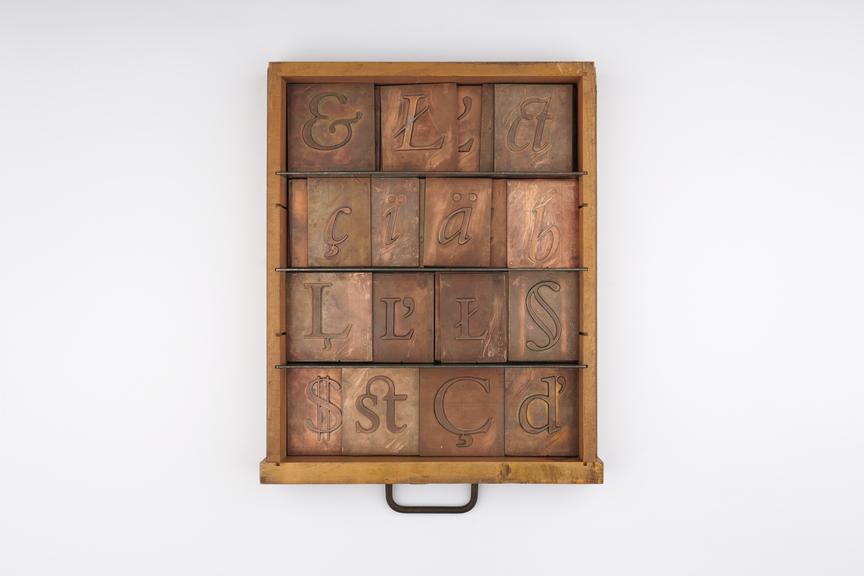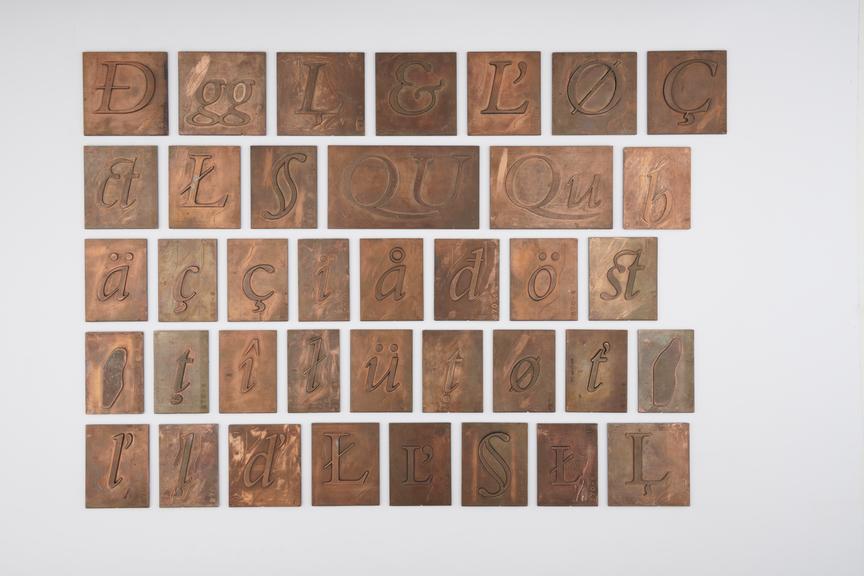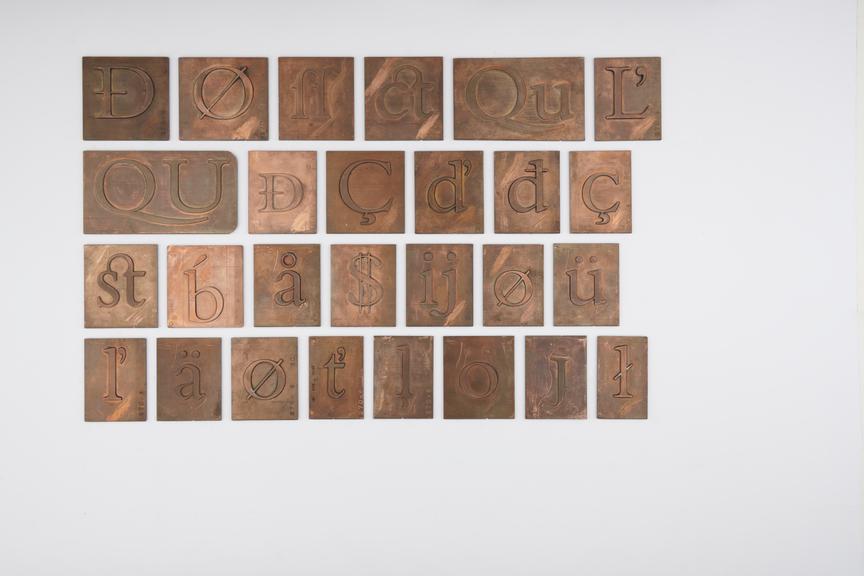
Pattern for Bembo (Typeface Series number: 270)
Pattern for Bembo (Typeface Series number: 270). 6 point. Copper plate backed with lead. In original wooden tray. Manufactured by Monotype Corporation.
All Old Face designs up to the time of Caslon can be traced back to a roman type which Francesco Griffo cut for the Venetian printer Aldus Manutius. The first of these, used for Cardinal Bembo’s tract de Aetna in 1495, was the original upon which Monotype Bembo is based and named. Esteemed typographer Stanley Morison’s research showed that it was the model followed by Garamond and the forerunner of the standard European type of the next two centuries. Bembo was carefully redrawn to capture the spirit and intention of the original as part of an effective type design programme at Monotype. The first size of Bembo was released in 1929 and many more followed over the years. The functional serifs and comfortably balanced letters make it a very legible face in all its sizes.
Bembo is classified as an Old Face design due to the diagonal stress, bracketed serifs and the lowercase top serifs cut off on the slant. Monotype described the design as ‘free from peculiarities’. The letters by which the face can be most easily identified are the square ‘H’; the round ‘O’ with back-tilted axis; the curved arm of ‘K’; the flat top of ‘A’; the flattened foot of ‘J’; and the splayed base of ‘M’. There were two versions of capital ‘R’, with the leg protruding to different lengths. The capitals are slightly shorter than the lowercase ascenders. In the lowercase there is no point or serif to the foot of ‘b’; an upturned foot to ‘d’; long heavy cross-stroke to ‘t’; large loop and heavy wedge ear to ‘g’. The final stem of ‘h’, ‘m’, and ‘n’ each has a subtle curve inwards.
There were two italics designed to accompany the regular weight of Bembo. The first italic was the only typeface designed by calligrapher Alfred Fairbank and it became a separate series known as Condensed Italic. The companion italic was also calligraphic in origin and was adapted from a face of printer Giovanni Tagliente in 1524.
The Bembo typeface family comprises of seven series for hot-metal typesetting. Bembo Series 270 was manufactured in 21 sizes between 1929 and 1959. The other series include Condensed Italic, Titling Cyrillic, Titling; Bold; Heavy; and Semi-Bold.
Since its creation, Bembo was quickly adopted by book designers, and regularly topped the league tables of types used to set books in the mid-twentieth century. The typeface has enjoyed continuing popularity as an attractive, legible book typeface. Bembo went on to be released in versions for phototypesetting and as digital fonts by Monotype and other companies. With its handsome, well-propotioned letterforms and clear, unfussy detail, it has been described as ‘the loveliest roman of all’.